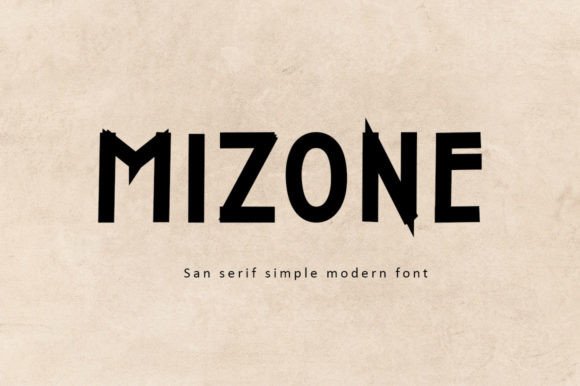
Mizone Font
Presenting Mizone Font, a Sans Serif masterpiece, crafted by Syafira Studio. This modern typographic vision captivates with its whimsical charm, granting your designs a personality that demands attention.
Journey into a world of boundless creativity, where Mizone Font transforms your words into evocative expressions. Its exceptional versatility molds seamlessly into a myriad of design landscapes, from playful covers and eye-catching flyers to impactful posters and majestic banners.
Unleash the boundless potential of Mizone Font. Its clean lines and elegant curves dance harmoniously upon the screen, inviting your audience into an immersive visual experience. Whether you're a seasoned designer seeking to elevate your craft or a budding creative yearning for a distinctive touch, Mizone Font is your perfect companion.
Design with Mizone Font and witness your vision flourish into something extraordinary. Your designs will radiate with a captivating charm, leaving an indelible mark on the hearts and minds of your audience.